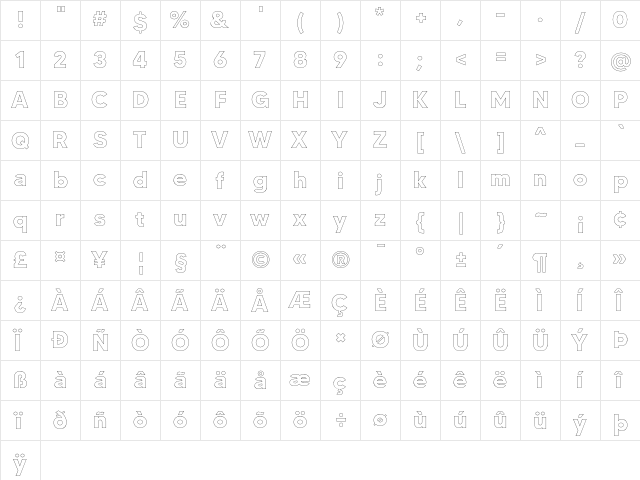
MADE TOMMY Outline Bold
Design Context for MADE TOMMY Outline Typeface
MADE TOMMY Outline is built around its visual character rather than neutral utility — its distinctive forms are designed to make an impression at display sizes. Its bold stroke weight gives it real presence on the page.
Font Pairing: Pair with a clean neutral sans-serif for body copy to let MADE TOMMY Outline's character lead without overwhelming the composition.
Pro Tip: Treat MADE TOMMY Outline as the centrepiece of your typographic hierarchy. One strong heading set in a decorative face can carry an entire layout.